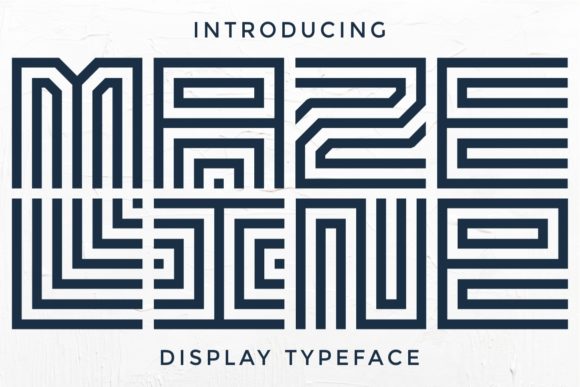
Embrace the Future of Typography: Discover the Alluring Maze Line Font
In the ever-evolving world of digital design, where creativity reigns supreme, allow us to introduce you to a typographic masterpiece that transcends boundaries - the Maze Line Font. Gaze upon its intricate, maze-like arrangements and let your imagination soar into the realm of the future.
This display typeface is a testament to the boundless possibilities of design. Its striking lines intertwine like a labyrinth, captivating the eyes and inviting them to explore the depths of your creations. With Maze Line Font, ordinary text is transformed into a captivating spectacle, leaving an indelible mark on the minds of your audience.
Dare to be Different: Stand Out from the Crowd
In a sea of uniformity, dare to stand out with Maze Line Font. Let your designs break free from the confines of convention and embrace the allure of the extraordinary. This font is your gateway to a world where creativity flourishes and originality is celebrated. Whether you're crafting logos, posters, website headers, or social media graphics, Maze Line Font will elevate your designs to new heights.
Experience the Power of Futuristic Aesthetics
Immerse yourself in the realm of the future with Maze Line Font. Its enigmatic lines evoke a sense of innovation and progress, propelling your designs into the forefront of modern design aesthetics. Whether you're designing for a tech startup, a cutting-edge fashion brand, or a forward-thinking creative agency, Maze Line Font will seamlessly merge with your vision, creating designs that resonate with the zeitgeist of the future.
Unlimited Creative Potential: Unleash Your Imagination
With Maze Line Font as your creative companion, the possibilities are endless. Experiment with different colors, sizes, and arrangements to craft designs that reflect your unique style and message. Let the font's intricate lines dance across your designs, creating a symphony of visual delight. Whether you're a seasoned designer or just starting your creative journey, Maze Line Font will empower you to unlock your full potential and leave a lasting impression on your audience.